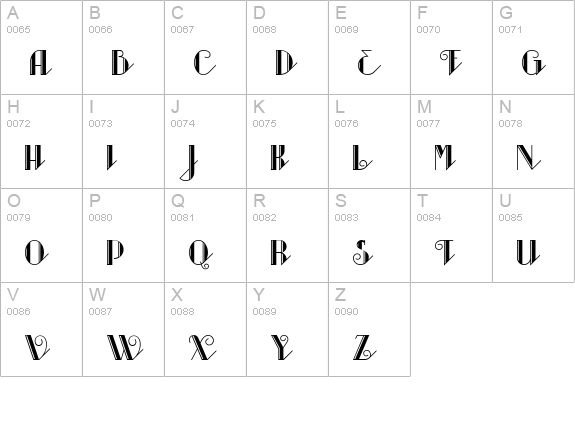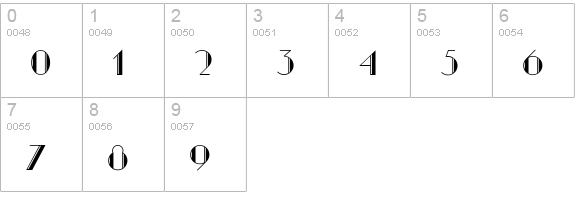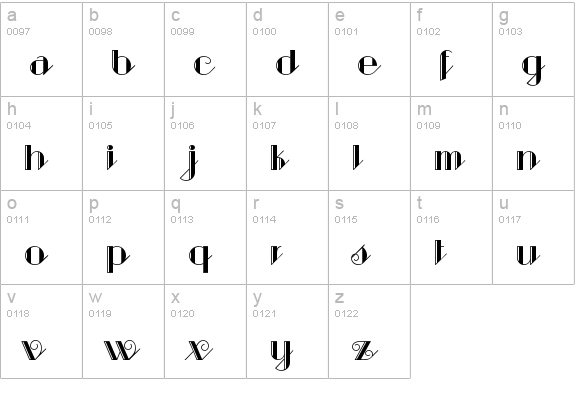
Sarsaparilla NF is a charming and versatile display font that exudes a sense of vintage elegance and sophistication. With its unique serifs and stylish curves, this font is perfect for adding a touch of nostalgia to any design project. Whether you're working on branding, packaging, signage, or any other creative endeavor, Sarsaparilla NF is sure to make a lasting impression. And the best part? Sarsaparilla NF is completely free to download at FontsMarket.com. Yes, you read that right - you can access this stunning font at no cost, making it an invaluable addition to your font collection. Don't miss out on the opportunity to elevate your designs with the timeless beauty of Sarsaparilla NF. Download it now and let your creativity shine!